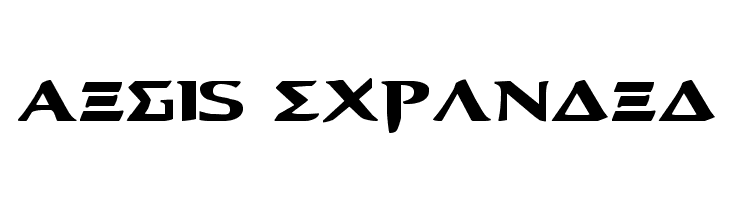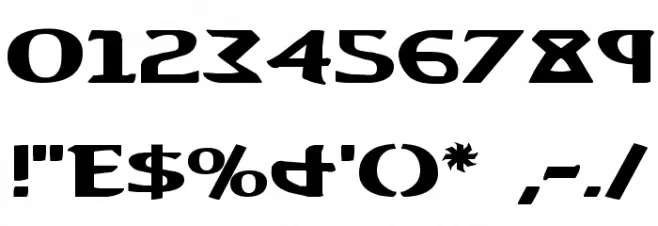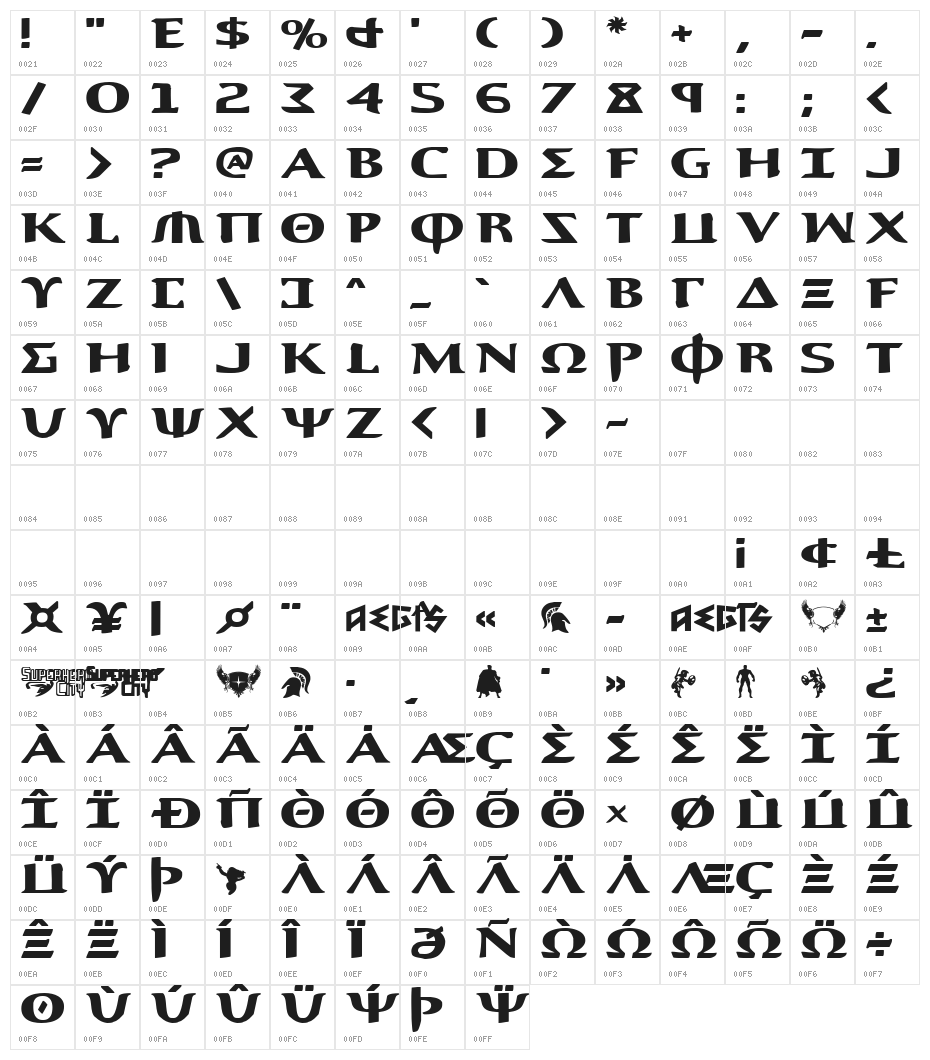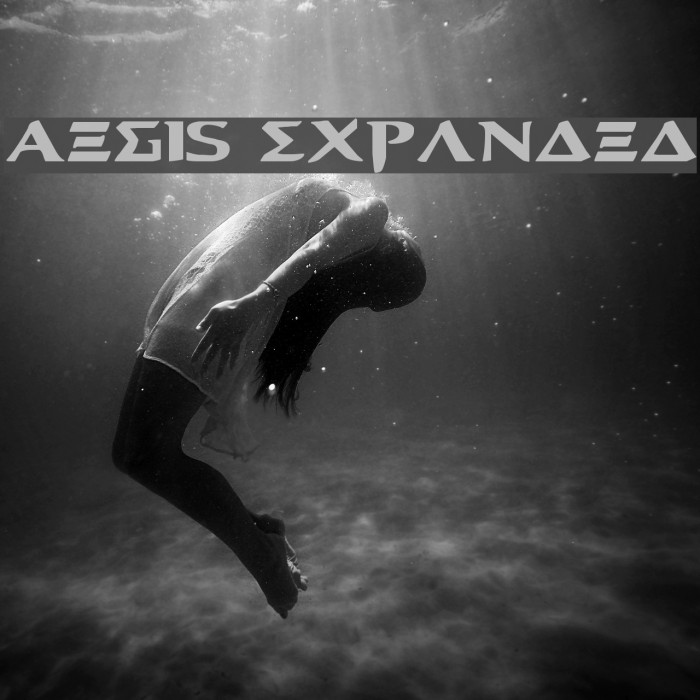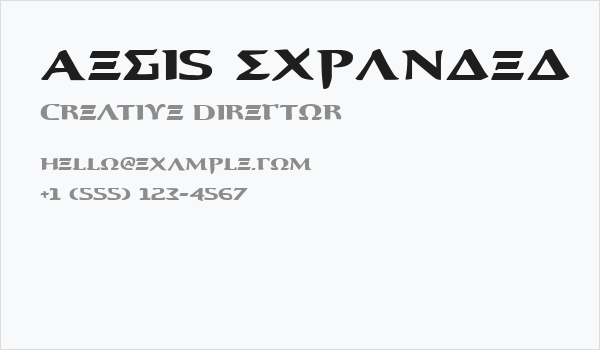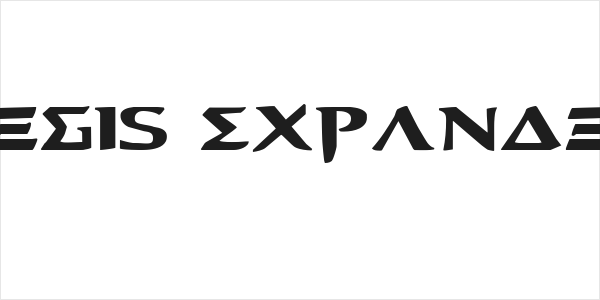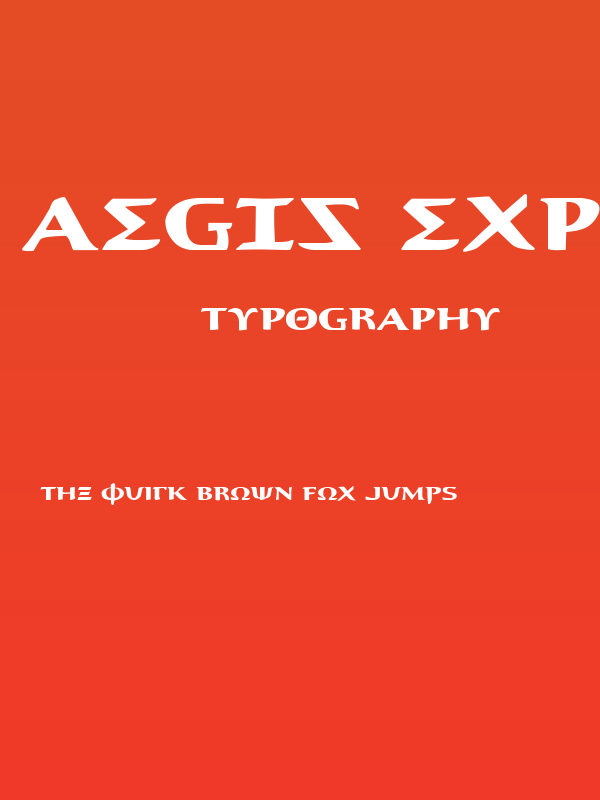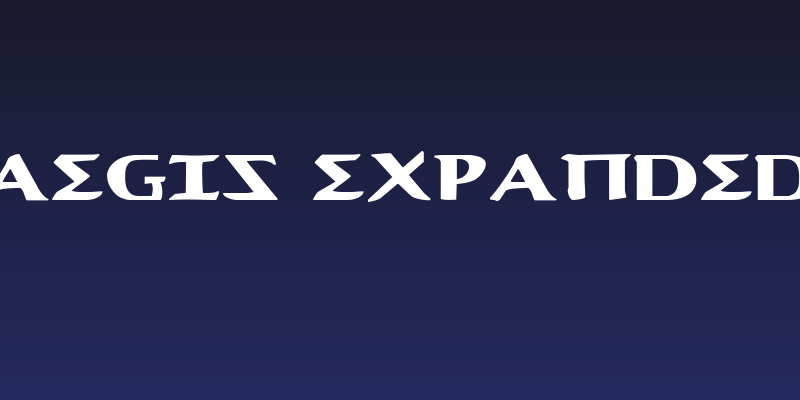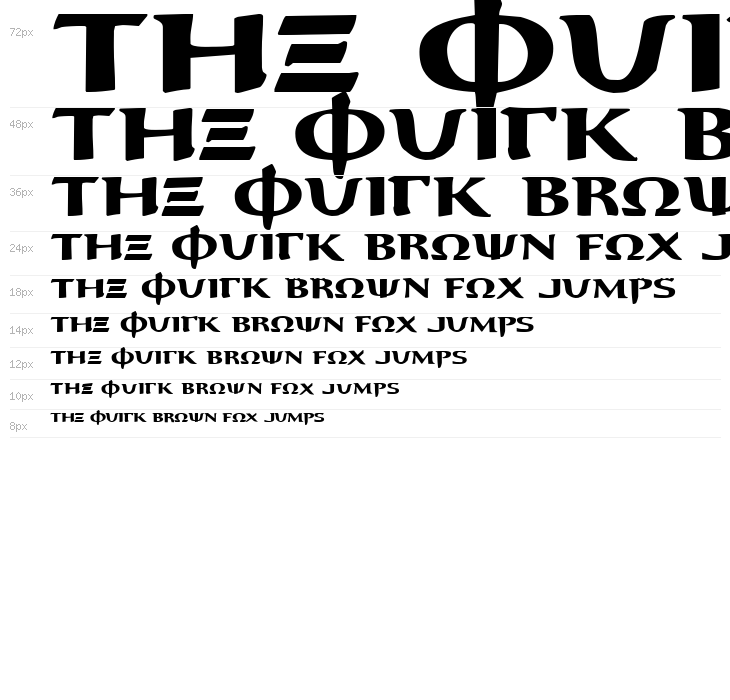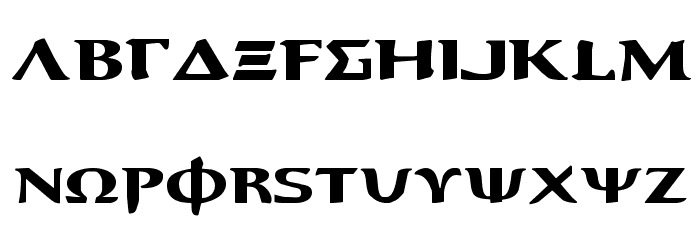
Aegis Expanded Font
Aegis Expanded Description
This font features a bold and striking design with a unique blend of angular and curved elements. The characters are distinctly wide, giving them a strong presence on the page. The uppercase letters are particularly notable for their geometric shapes, while the lowercase letters maintain a consistent style that complements the overall aesthetic. The numbers are equally bold, ensuring readability and impact. Special characters are designed with the same attention to detail, making them stand out. This font's expanded width and bold strokes make it ideal for projects that require a commanding visual impact.